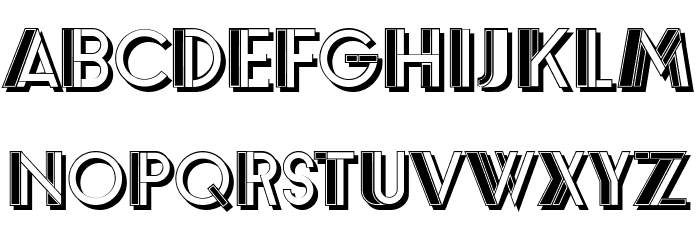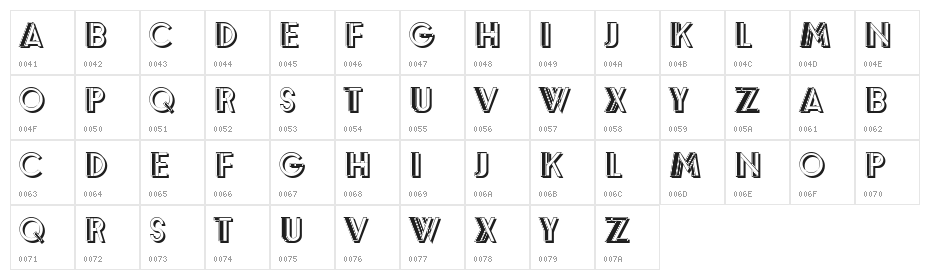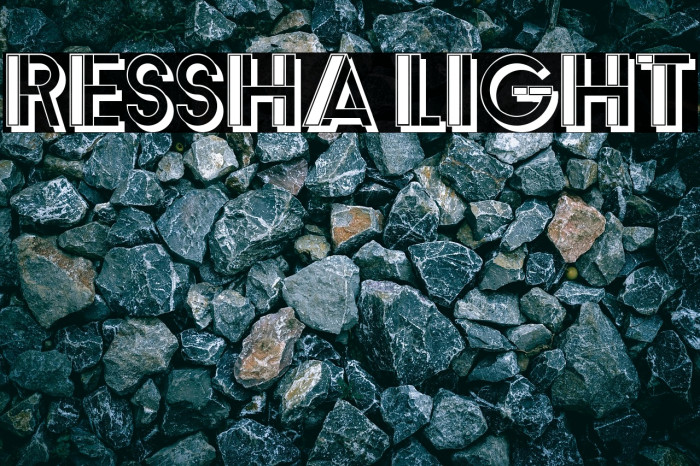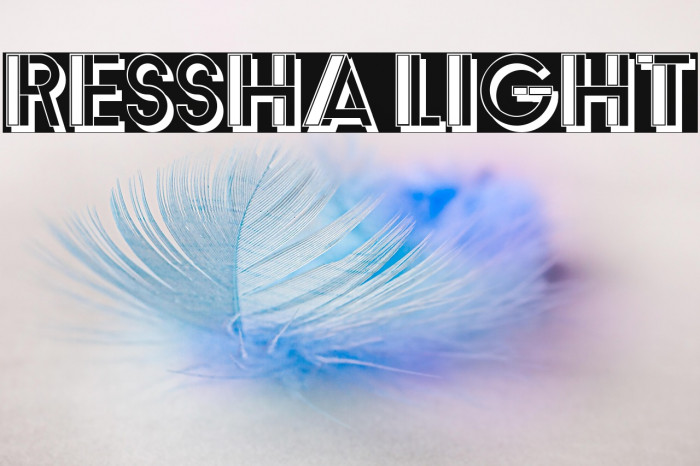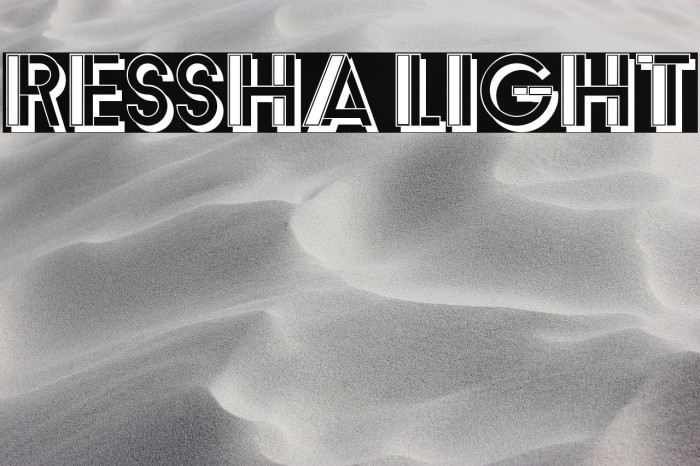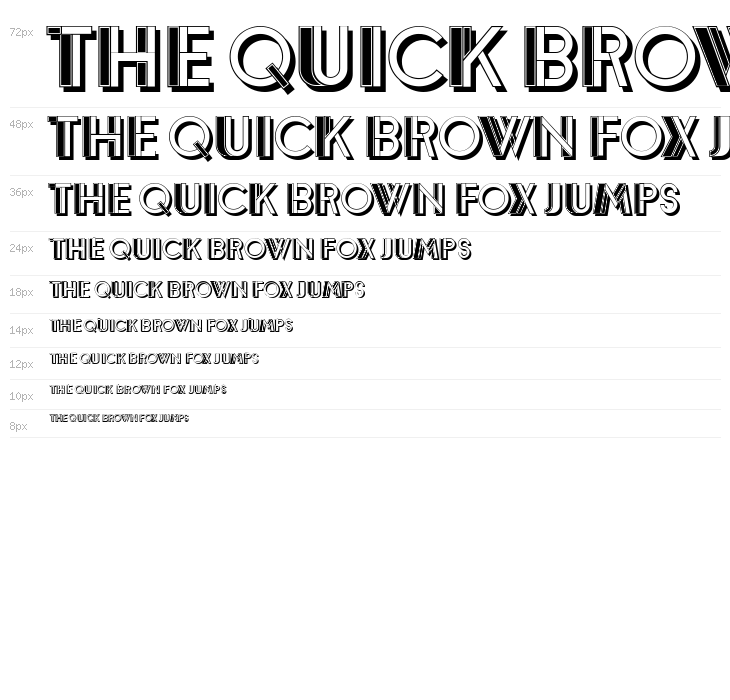
Ressha Light Font
Ressha Light Description
This font features a bold and striking design with a three-dimensional effect, created by layering multiple outlines and shadows. The uppercase letters are uniform in height and width, giving a balanced and structured appearance. The geometric shapes and clean lines contribute to a modern and dynamic look, making it ideal for attention-grabbing headlines and titles. The font's unique style is characterized by its layered structure, which adds depth and visual interest. The overall design is both contemporary and versatile, suitable for a variety of creative projects.